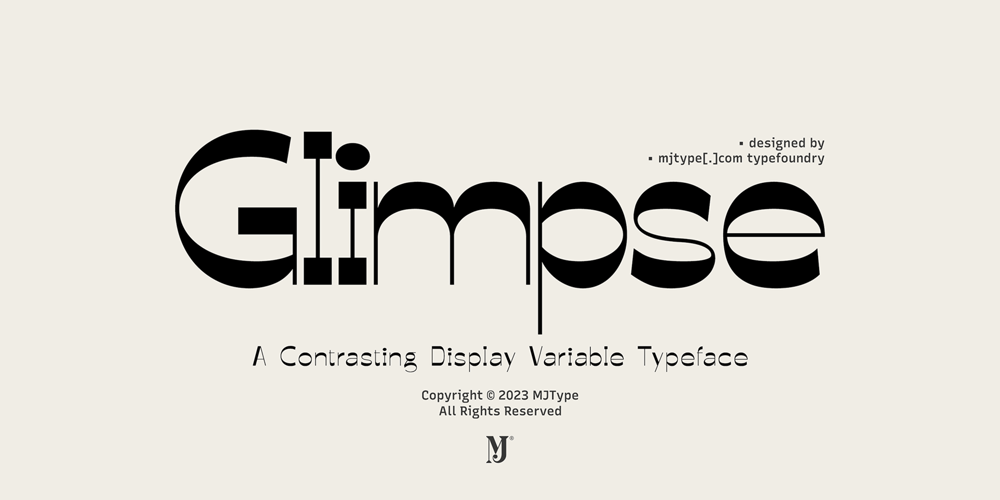
Glimpse
Glimpse font
Glimpse Font Family was designed by Muhamad Junaid and published by MJType. Glimpse contains 9 styles and family package options. The Glimpse Font Family, with its reverse contrast approach, provides a fresh take on display fonts. It allows designers to play with visual hierarchy in an innovative way, using the variable weights to enhance different textual elements. Despite their distinctive weights, each font in the family maintains a cohesive look and feel.